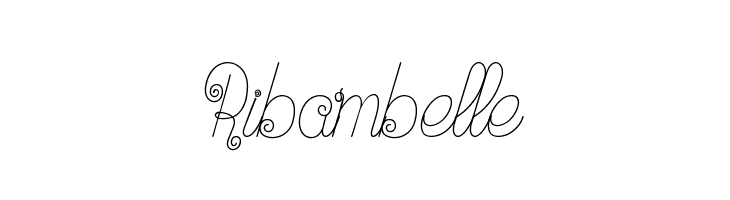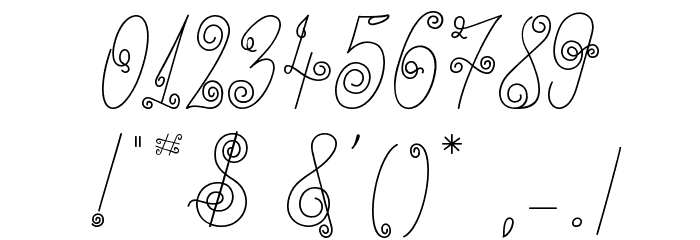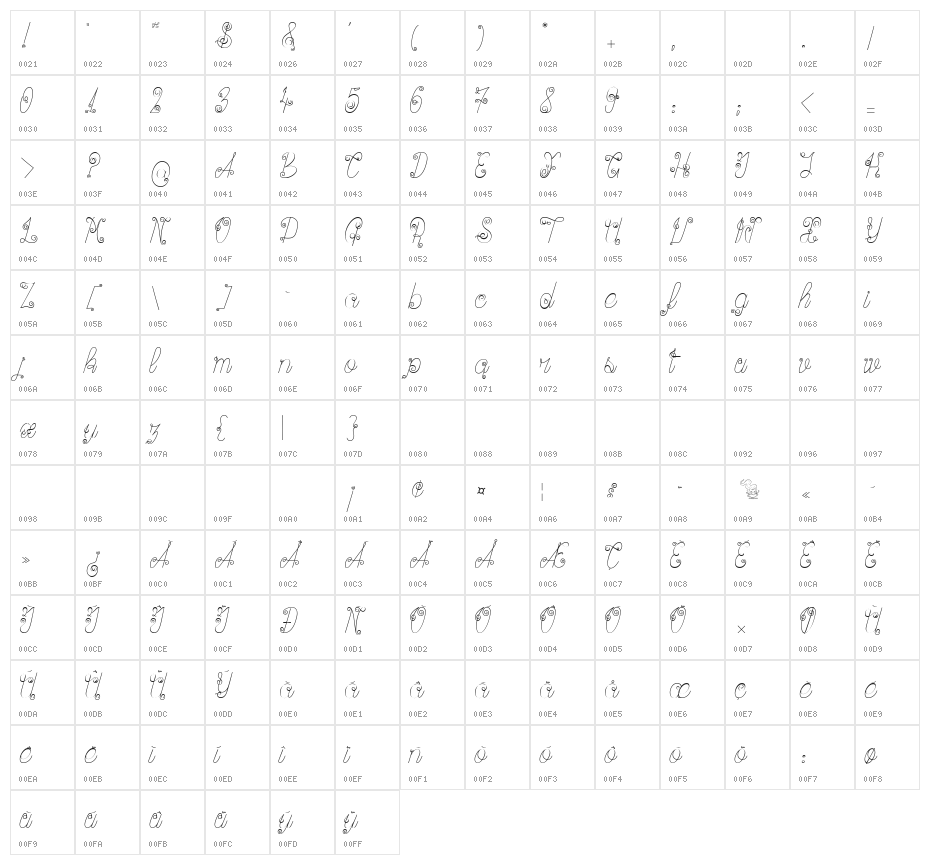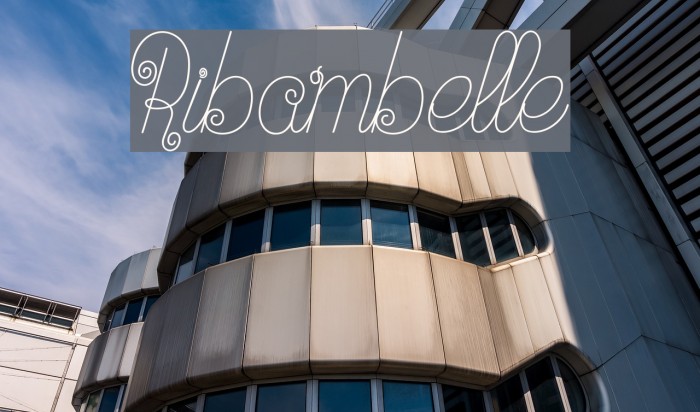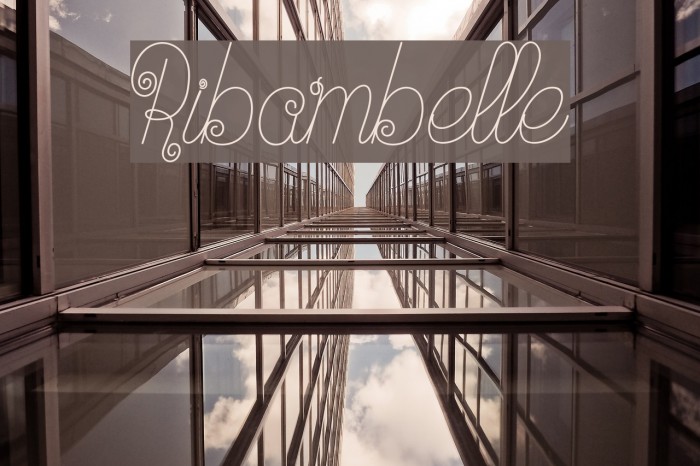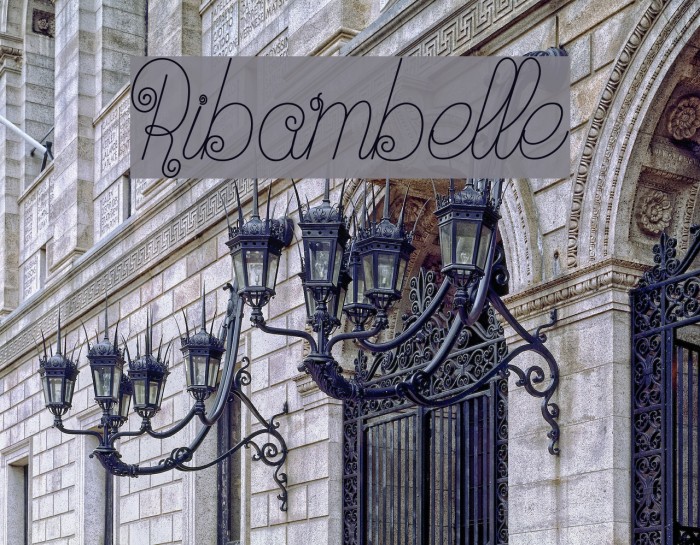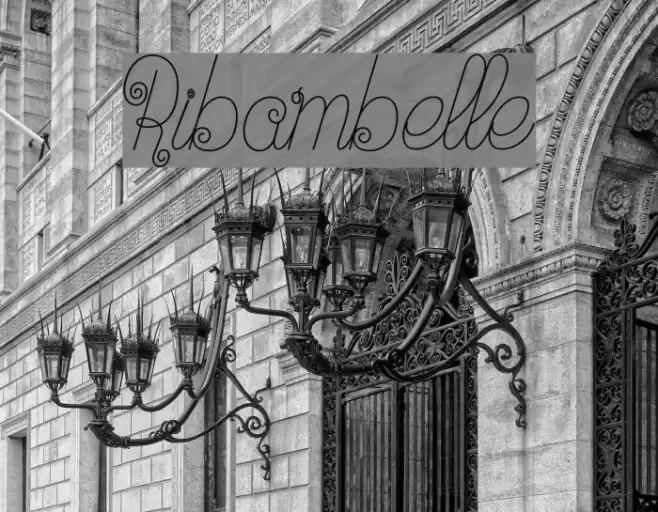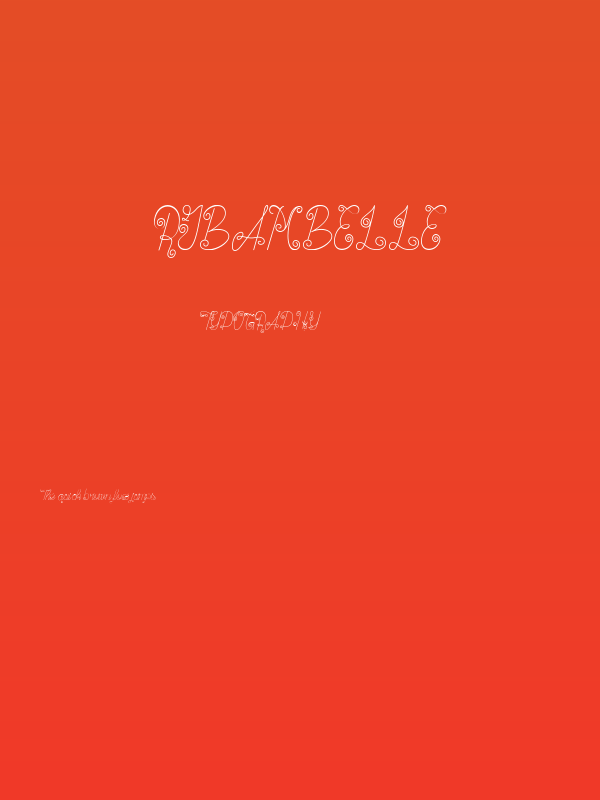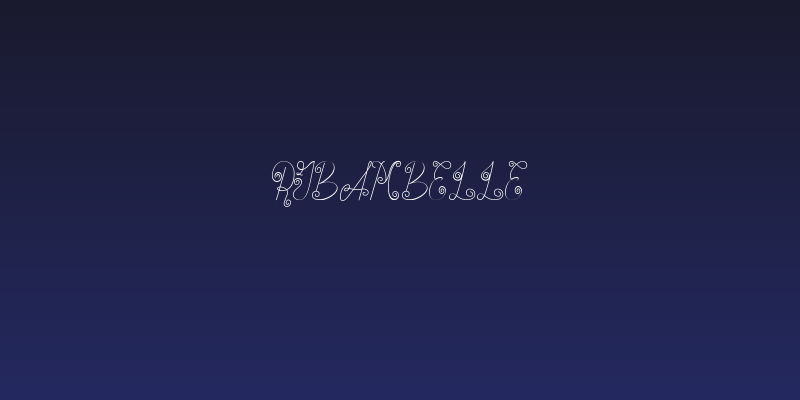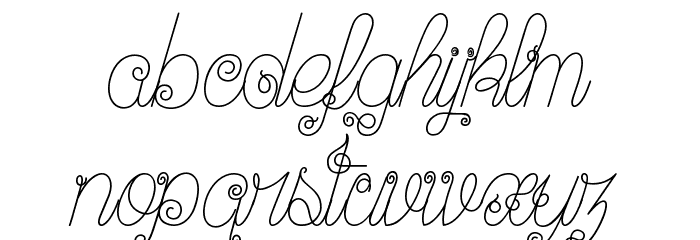
Ribambelle Font
Ribambelle Description
This font features an elegant and whimsical design characterized by its intricate swirls and loops. Each letter is crafted with a sense of playfulness and artistic flair, making it stand out with its decorative elements. The uppercase letters are bold and prominent, while the lowercase letters maintain a delicate balance with their slender lines and elaborate curls. Numbers and special characters follow the same ornate style, ensuring consistency throughout. This font is perfect for adding a touch of sophistication and creativity to any project.
| Proposed Projects | Ideal for wedding invitations, greeting cards, artistic posters, and branding that requires a touch of elegance and creativity. |